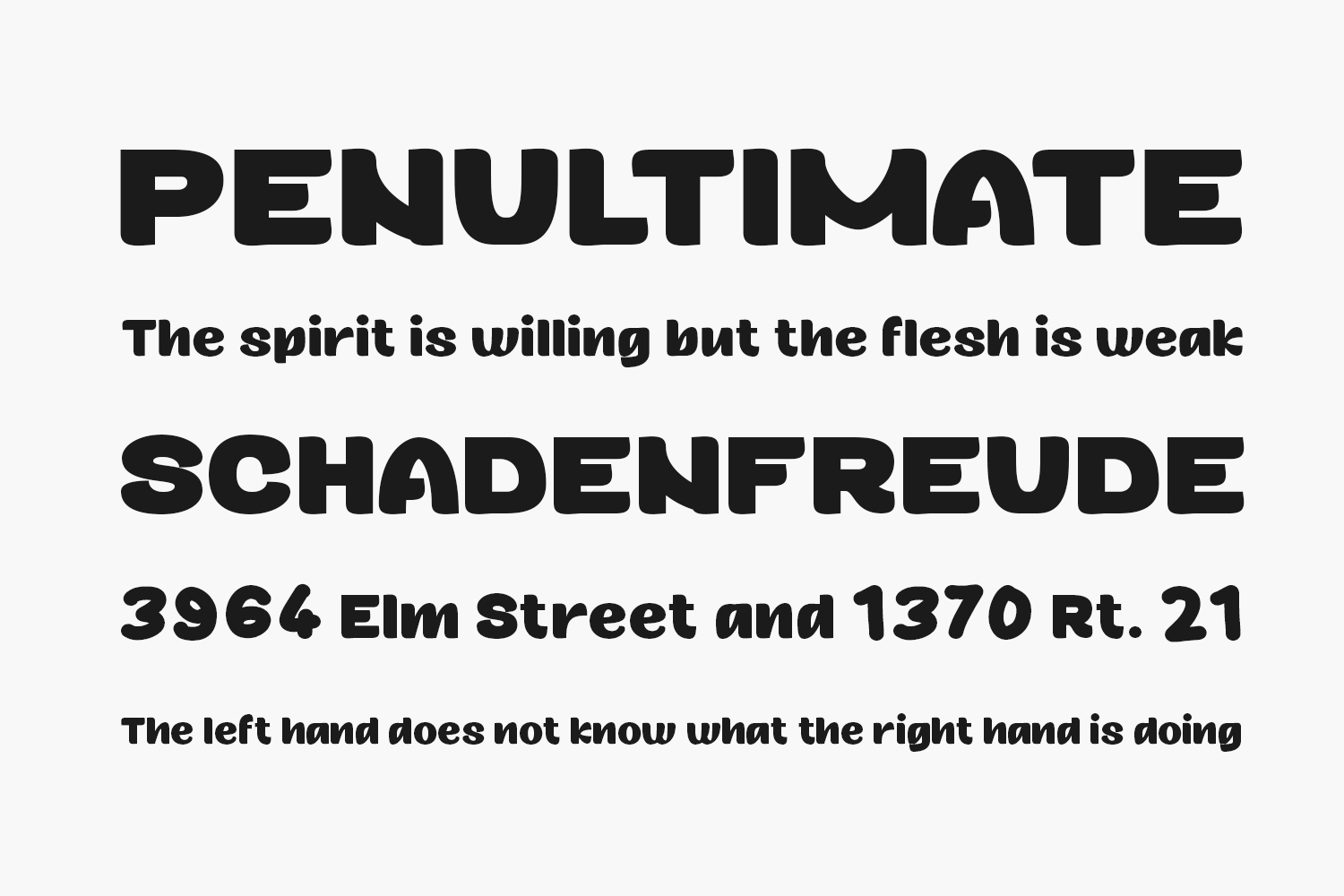
Kids Cute – Free Playful Bubble Display Font for Young Audiences
Kids Cute is a bubbly, child-friendly display typeface designed by Nirmana Visual. Featuring rounded, chunky letterforms and soft edges, it brings joyful personality and readability to any design. Ideal for children’s books, educational worksheets, posters, logos, greeting cards, and branding aimed at young audiences. The demo version is available in OTF format and is free for personal use; a full commercial version can be purchased through the designer’s site.
- Friendly Bubble Style: Rounded and chunky forms evoke playfulness and approachability.
- High Readability: Thick strokes and clear shapes make it ideal for young readers.
- Versatile Use Cases: Works well across educational, editorial, branding, and packaging designs targeting kids.
- Children’s Books & Worksheets: Friendly typography for early reader materials.
- Educational Posters & Flashcards: Bold headers and fun headings for classrooms.
- Kids’ Branding & Packaging: Ideal for toy labels, kids’ clothing, or kid-focused goods.
- Greeting Cards & Invitations: Perfect for birthdays, baby showers, or party designs.
- Social Media for Family Brands: Approachable overlays for Instagram, Pinterest, or educational platforms.
Design Tips with Kids Cute
Use at medium to large display sizes (24 pt+). Pair with simple sans‑serifs like Relevance or Versatylo Rounded for readability. Bright, primary colors and pastel palettes complement its youthful look—consider combining with cartoon illustrations or playful layouts.
- Glyphs: Uppercase A–Z, numerals, punctuation (~317 glyphs).
- Language Support: Basic Latin—supports English and Western European languages.